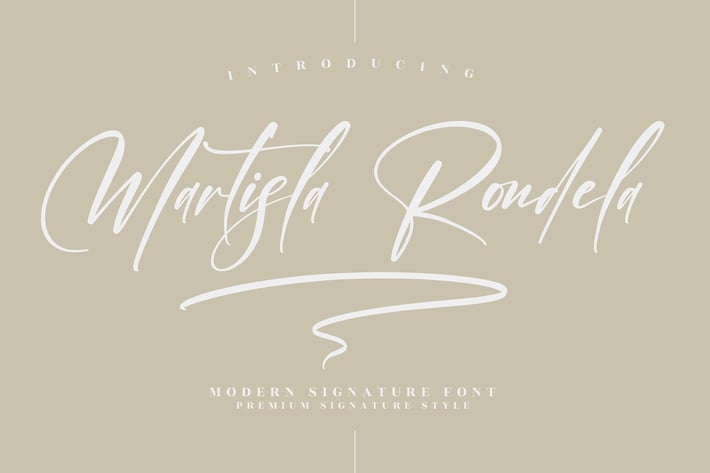
Martisla Rondela Modern Signature Font
Martisla Rondela is a refined modern signature font designed with smooth strokes, elegant curves, and a luxurious handwritten feel. Its slender letterforms and flowing signature style bring sophistication and a premium aesthetic to any design. Perfect for projects that demand a personal, upscale, and stylish handwritten touch, this typeface elevates branding, editorial work, and creative layouts with timeless elegance.
Modern handcrafted signature style
Elegant, flowing script with natural movement
High readability with a clean premium look
Ideal for both digital and print applications
Perfect for upscale branding and stylish creative work
Luxury branding & identity design
Social media posts and promotional graphics
Wedding invitations & stationery
Product packaging & fashion labels
Editorial layouts and signature-style titles
Logos, name marks, and personal branding
Personal and commercial creative projects
Luxurious, elegant, and flawlessly handwritten — Martisla Rondela delivers premium signature style for any design.